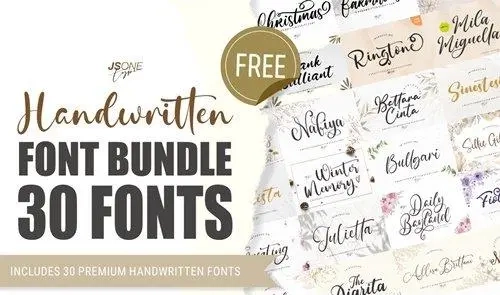
Handwritten Font Bundle 2
Introducing the Handwritten Font Bundle 2, a carefully curated collection of unique handwritten fonts designed to add a personal touch to your projects. This bundle features a variety of styles, from playful and casual to elegant and sophisticated, ensuring you find the perfect match for your creative needs.
• Styles: Various handwritten styles including script, brush, and casual fonts.
• Weights: Includes regular, bold, and italic variations.
• Ideal for branding, logos, invitations, and personal projects.
• Great for web design, print materials, and UI elements.